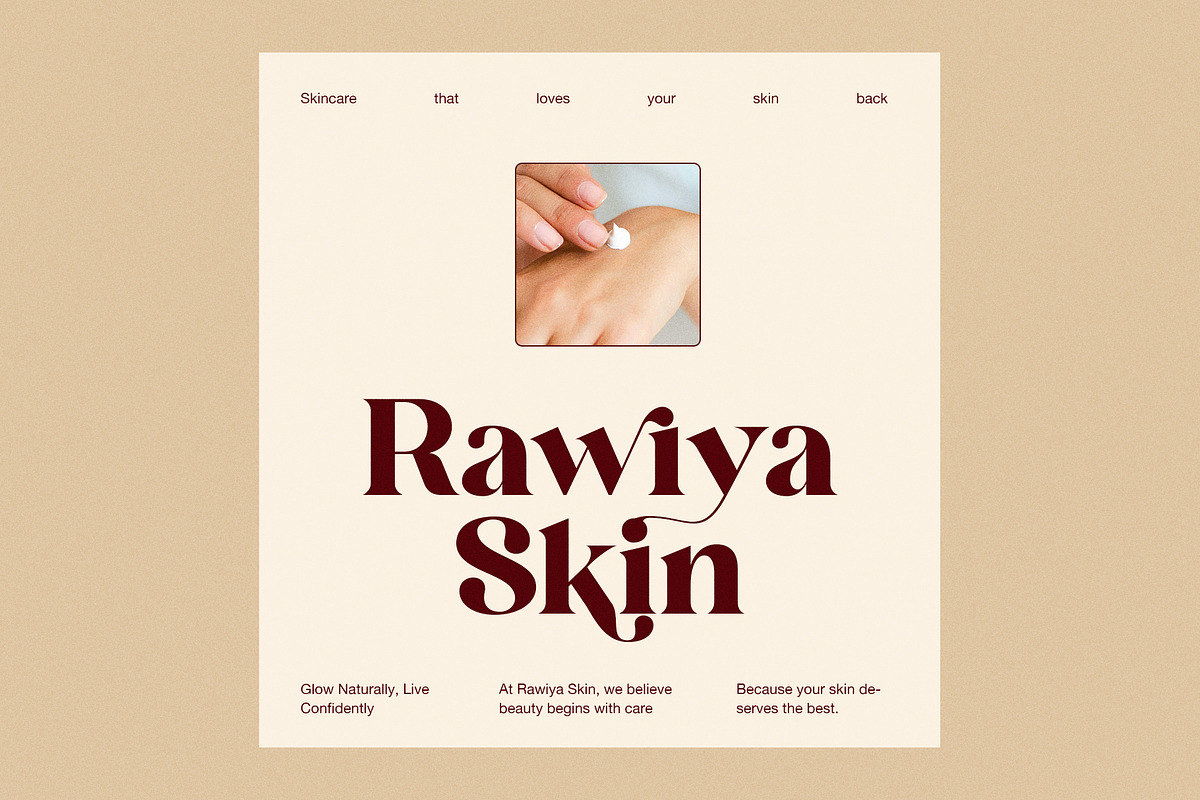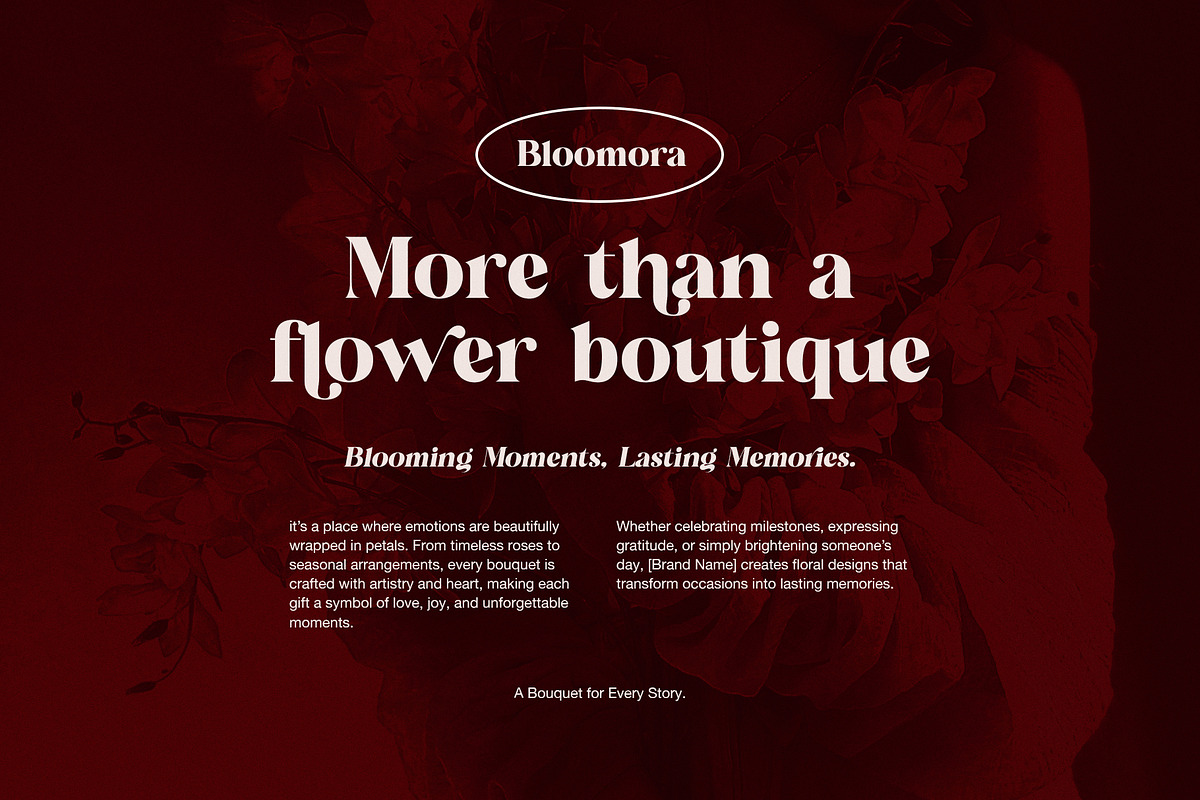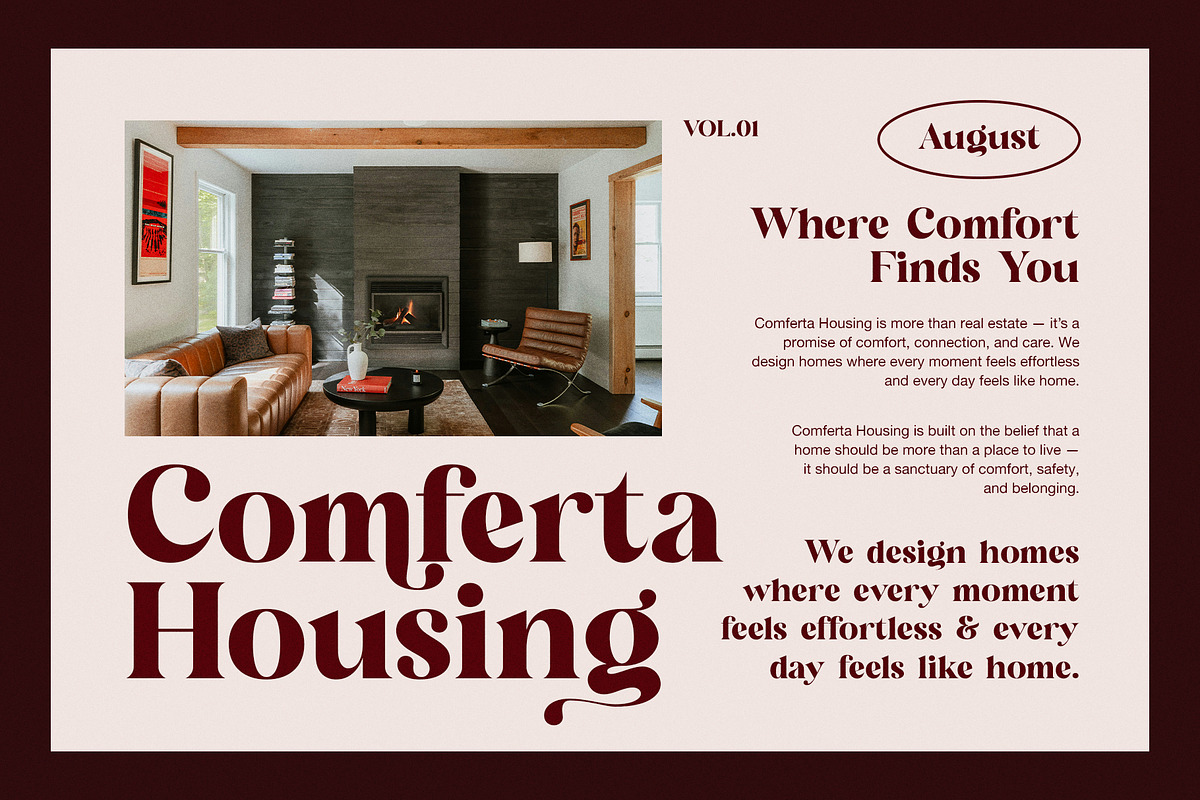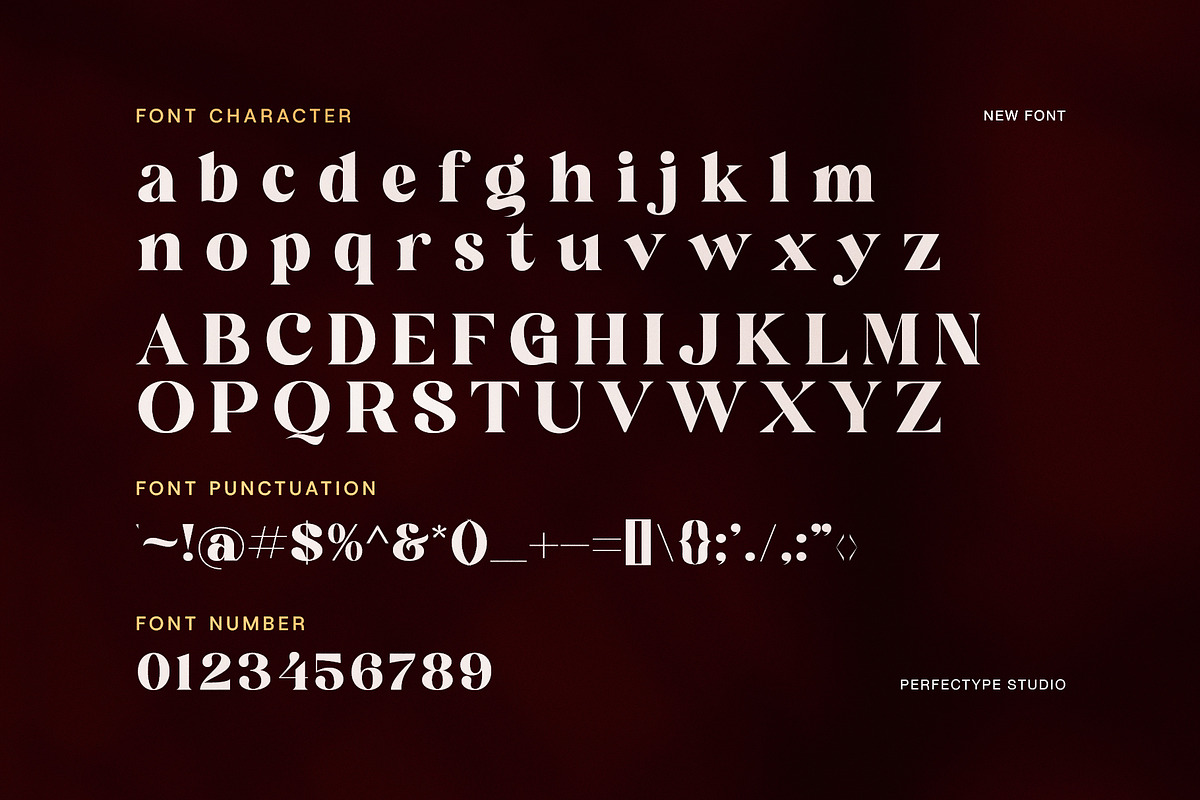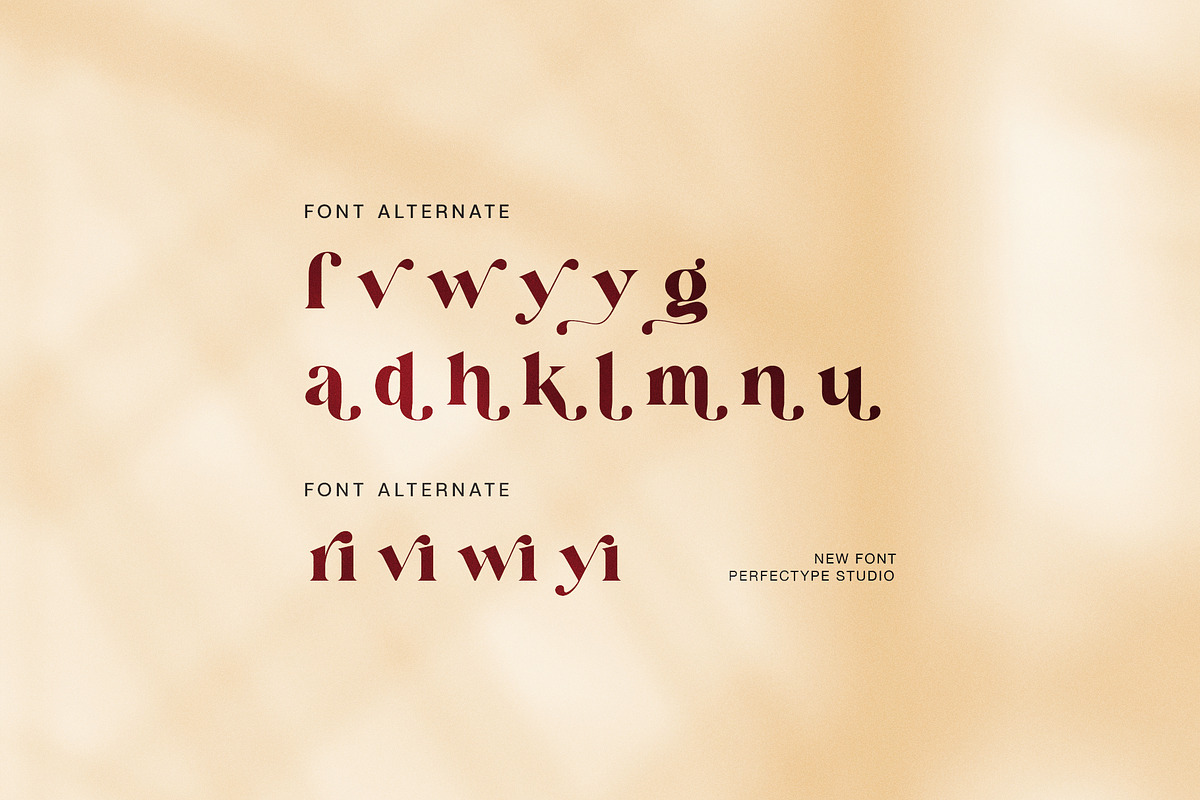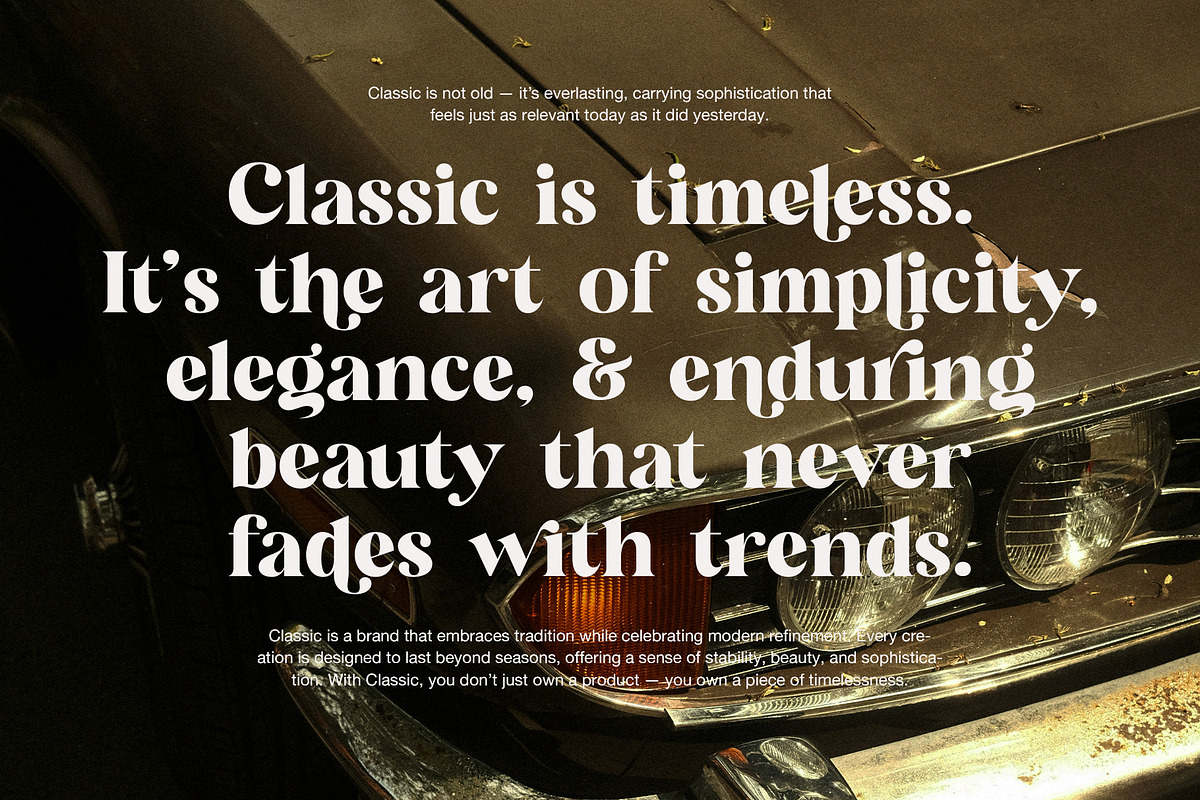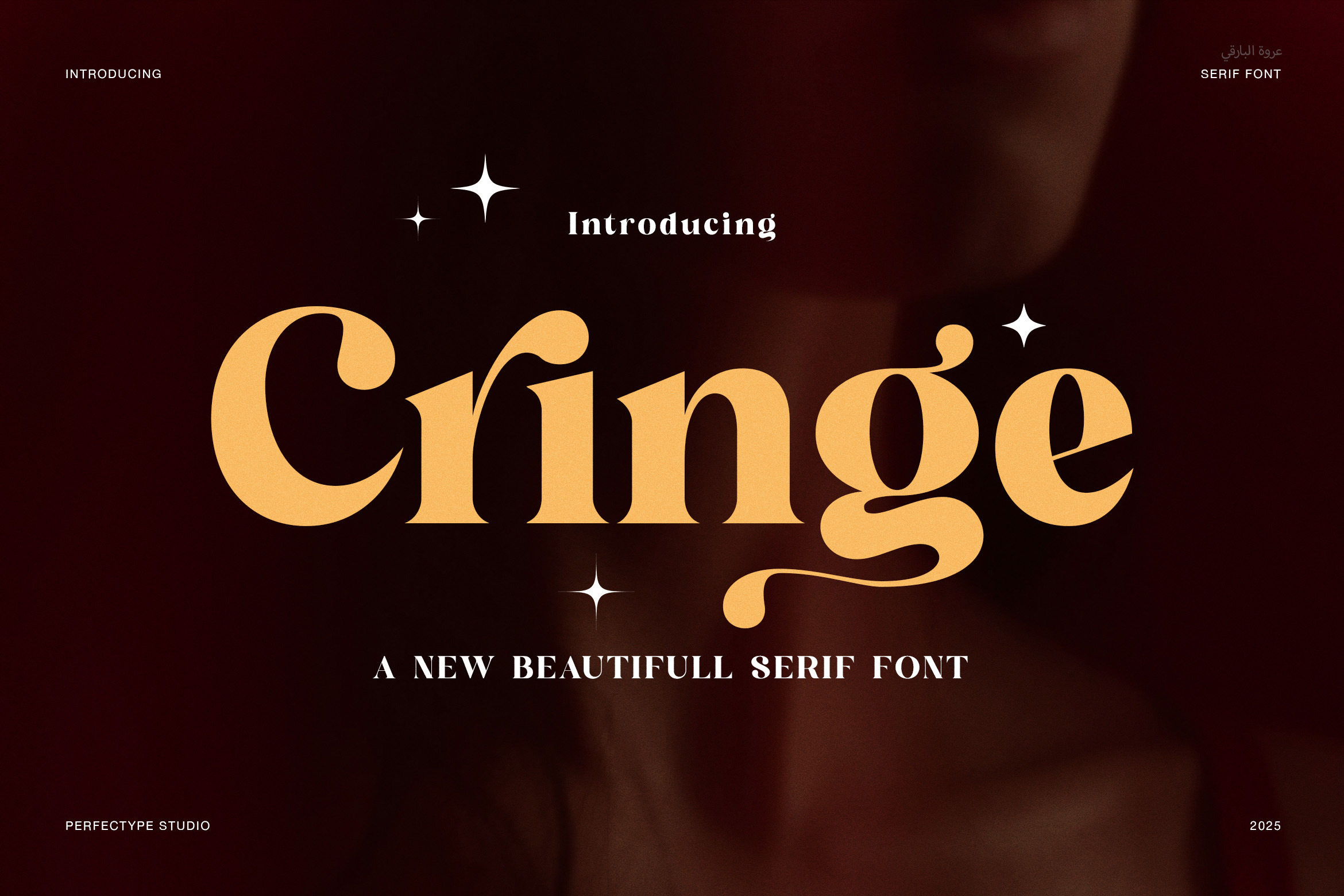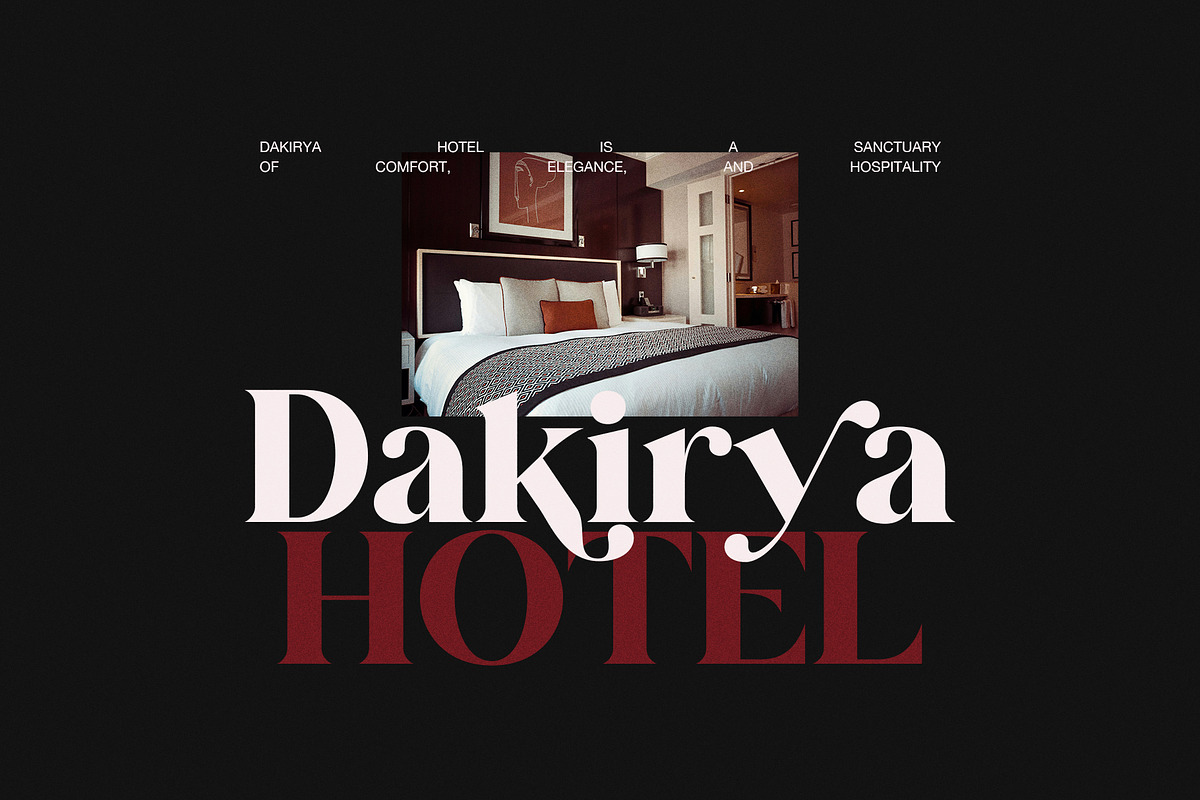
Cringe Elegant Serif Font
Cringe Elegant Serif is a stylish serif font that combines modern design with classic elegance. Its sharp serifs and refined letter shapes create a bold yet graceful appearance. Therefore, it is perfect for projects that need a touch of sophistication. This font stands out because it balances strong structure with delicate details, making it ideal for both display and body text.
The shape of Cringe Elegant Serif features clear, crisp lines with moderate contrast between thick and thin strokes. Moreover, this balance ensures excellent readability while adding a unique flair to every character. Its slightly condensed letterforms save space without losing clarity. As a result, it works wonderfully in branding, editorial layouts, packaging, and invitations.
Stylistically, this font reflects a modern yet timeless feel. For instance, it pairs well with both minimal and decorative fonts, which allows designers to create layered, eye-catching compositions. Additionally, Cringe Elegant Serif brings a sense of refinement and professionalism, which is perfect for luxury brands, fashion magazines, and wedding designs.
Regarding usage, Cringe Elegant Serif is versatile across print and digital media. Whether on product labels or website headers, it maintains its visual impact and legibility. Furthermore, it supports multiple languages, ensuring that your design reaches a wider audience with ease.
Key features of Cringe Elegant Serif include:
Modern serif with sharp, elegant serifs
Balanced contrast for readability and style
Condensed letterforms save space
Perfect for branding, packaging, and editorial
Great for luxury, fashion, and wedding projects
Multilingual support for global use
By choosing Cringe Elegant Serif, you add elegance and confidence to your creative work. Thus, this font is not just a typeface; it’s a statement of style and quality.